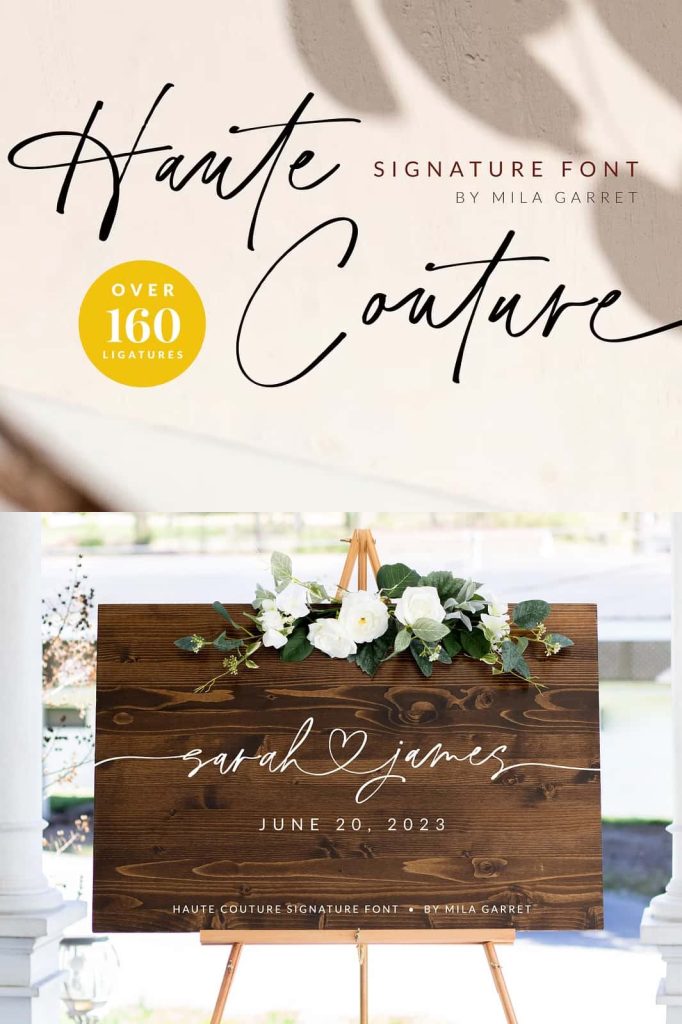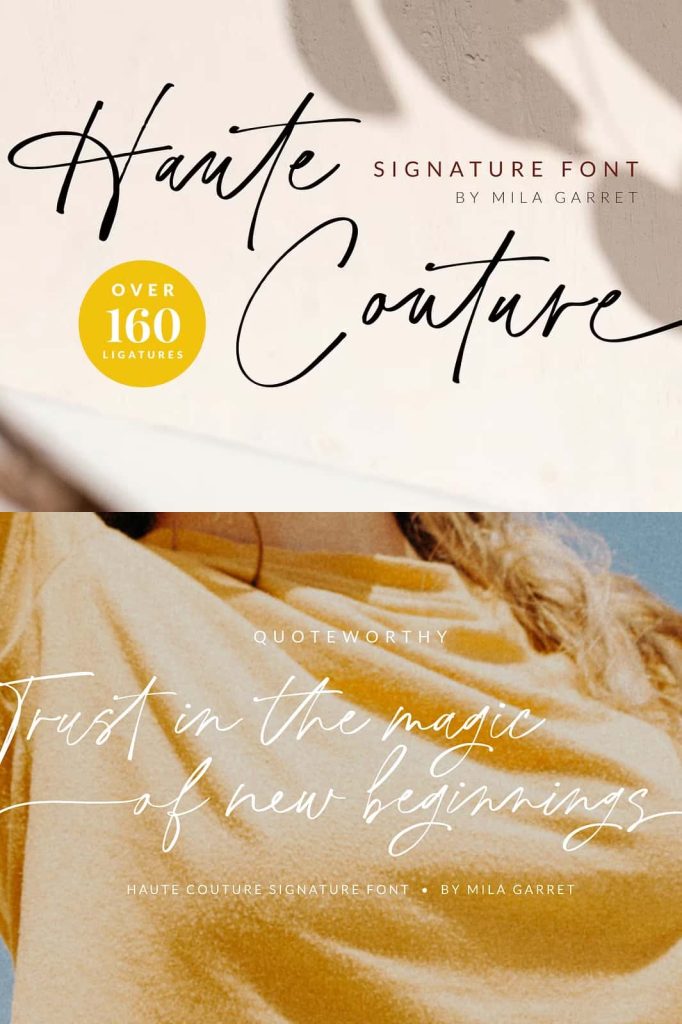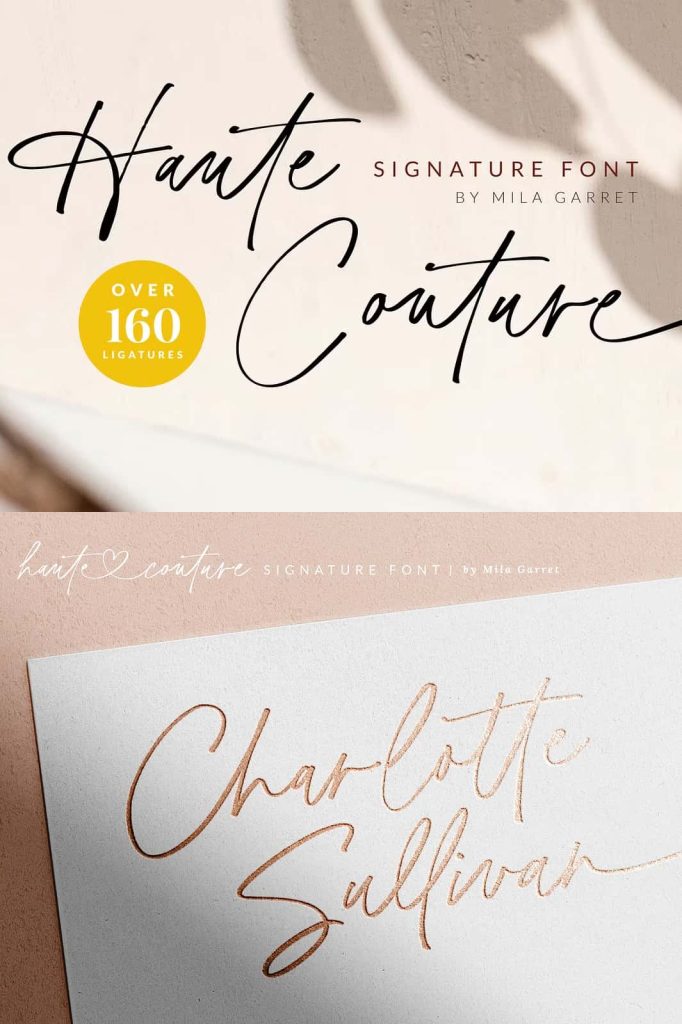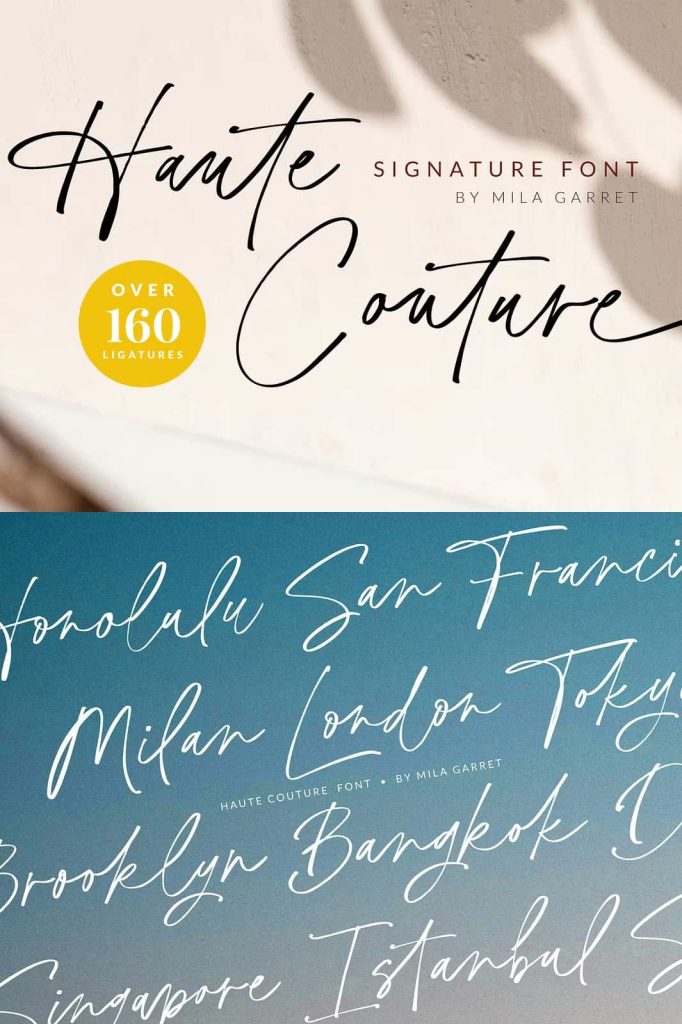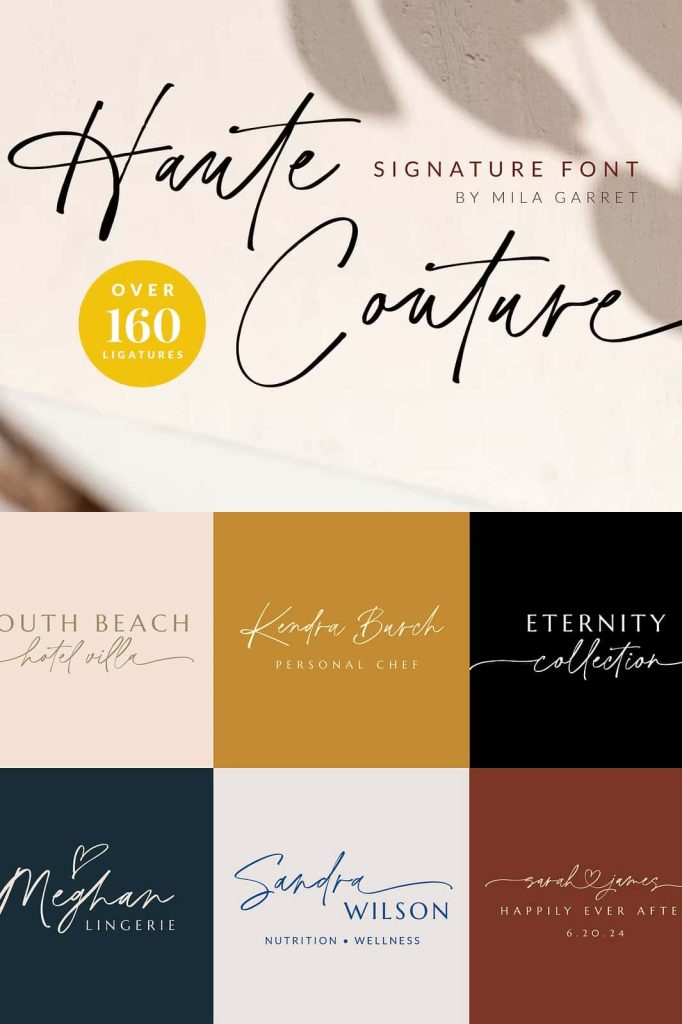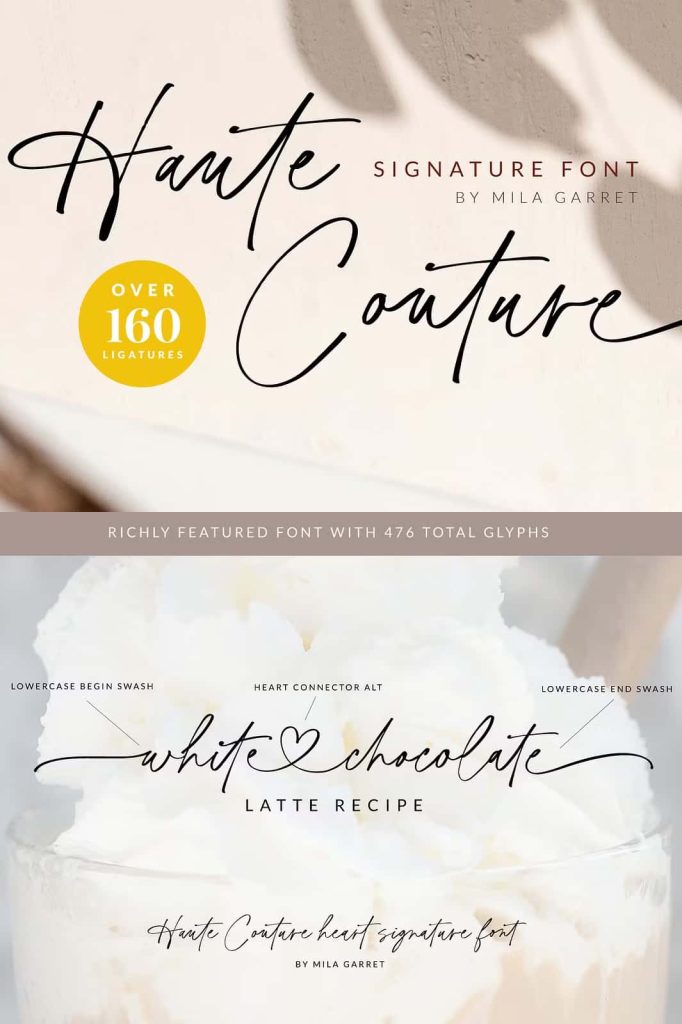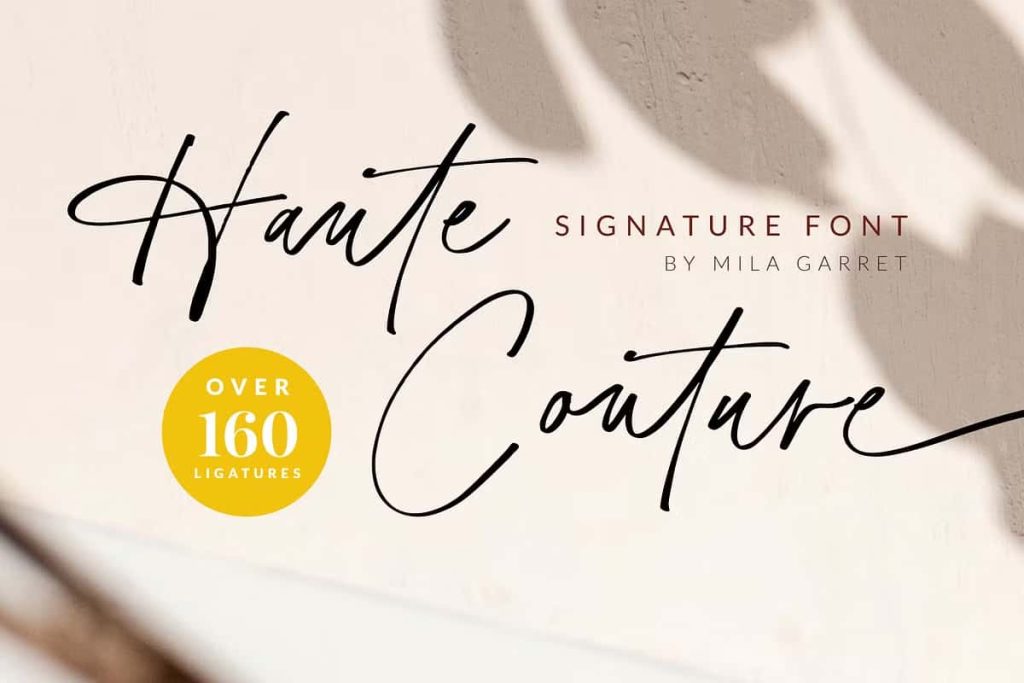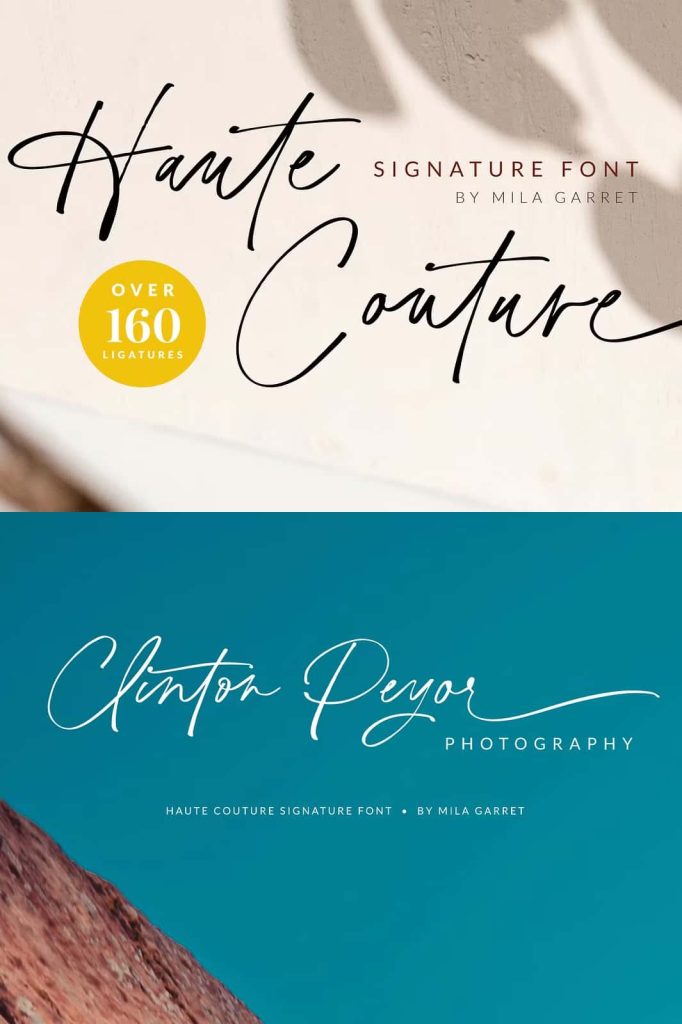
Haute Couture – An Elegant Handwritten Signature Font
Haute Couture is a sophisticated handwritten signature font designed to deliver elegance, personality, and artistic charm to modern typography. Inspired by natural handwriting and refined calligraphy, this typeface combines smooth flowing strokes with stylish curves that create a graceful and professional appearance. Designers can use Haute Couture to craft beautiful typography that feels personal, expressive, and visually striking.
This handwritten signature font captures the essence of authentic pen-written lettering while maintaining the clarity needed for professional design work. The elegant letterforms flow naturally from one character to another, producing a seamless handwritten effect. Whether used in branding, wedding stationery, or digital media, Haute Couture instantly adds a touch of luxury and creativity.
The name itself reflects the font’s personality. Just as haute couture fashion represents craftsmanship and elegance, this typeface brings refined beauty to typography. Designers who want to communicate sophistication and creativity will find Haute Couture to be a valuable addition to their font collection.
A Handwritten Signature Font with Calligraphy Flair
Haute Couture blends handwritten charm with subtle calligraphy influence. Each letter features smooth strokes and elegant curves that resemble natural pen movement. This approach creates a fluid rhythm across words and sentences, allowing the typography to feel organic and expressive.
The calligraphy flair enhances the overall elegance of the font. While the style remains relaxed and modern, the letterforms maintain graceful proportions that elevate the design. This balance between casual handwriting and refined calligraphy makes the font versatile for many different creative applications.
Designers often search for signature fonts that look authentic but still maintain readability. Haute Couture accomplishes this by combining artistic letterforms with carefully balanced spacing. The result is a typeface that looks natural while remaining easy to read in both large and small design elements.
Perfect for Handwritten-Style Logos
One of the most popular uses for Haute Couture is logo design. Many modern brands prefer signature-style typography because it creates a personal and memorable visual identity. The flowing strokes of this handwritten signature font help brands communicate elegance, authenticity, and creativity.
Designers can use Haute Couture to build stylish logos for fashion brands, beauty products, lifestyle businesses, and personal brands. The handwritten style suggests craftsmanship and individuality, making it especially suitable for businesses that want a refined yet approachable image.
Because the font has strong visual personality, it works well as the central element of a logo. Even simple layouts become distinctive when styled with elegant signature lettering.
Ideal Design Applications
- Handwritten-style logo design
- Wedding invitations and stationery
- Photographer watermark logos
- Brand identity projects
- Product packaging and labels
- Modern website typography
- Social media branding
- Creative quote graphics
Beautiful Typography for Wedding Stationery
Wedding design often requires typography that feels romantic, elegant, and personal. Haute Couture provides the perfect visual tone for wedding invitations, save-the-date cards, RSVP cards, and event announcements. The graceful strokes create a sense of intimacy and celebration that fits beautifully with special occasions.
Couples and wedding designers can use this handwritten signature font to craft invitation suites that feel handcrafted and luxurious. The flowing script style adds emotional warmth while maintaining sophisticated presentation.
In addition to invitations, the font also works well for wedding signage, table cards, thank-you notes, and decorative typography used throughout the event.
Ideal for Photographer Watermarks and Creative Branding
Photographers often rely on signature-style fonts to build elegant watermark logos. Haute Couture works perfectly in this context because its handwritten appearance feels personal while still looking polished. A signature watermark created with this font can help photographers brand their images without distracting from the visual content.
The font also adapts beautifully to creative branding projects. Designers can use it to build visual identities for artists, bloggers, content creators, and small businesses. The signature style suggests authenticity and creativity, which helps brands connect emotionally with their audiences.
Because the typography feels natural and stylish, it works well across multiple branding platforms including websites, business cards, packaging, and digital marketing materials.
Enhance Modern Website and Social Media Design
Haute Couture also shines in digital design environments. Websites and social media graphics benefit from typography that feels expressive and memorable. The handwritten script style helps create visually engaging headlines, hero text, and decorative accents.
Designers can use this font to highlight important messages, craft elegant call-to-action text, or add personality to brand storytelling. The flowing curves provide a strong visual contrast when paired with clean sans serif fonts commonly used in modern web design.
This combination allows designers to build layouts that feel both structured and creative, enhancing the overall user experience.
A Versatile Font for Modern Designers
Haute Couture offers a versatile typography solution for designers who want to add handwritten elegance to their work. The font performs beautifully across many types of design projects, including branding, editorial layouts, packaging, and event materials.
The secret to its versatility lies in its balanced design. While the font carries artistic personality, it remains refined enough for professional environments. Designers can confidently integrate it into both luxury branding and casual creative projects.
Because the font mimics natural handwriting while maintaining consistent structure, it allows designers to achieve authentic visual style without sacrificing quality or clarity.
Bring Elegant Signature Style to Your Typography
Haute Couture is more than just a decorative typeface. It is a carefully crafted handwritten signature font that helps designers create typography with elegance, warmth, and individuality. The graceful strokes and calligraphy-inspired curves give every word a sense of artistry and sophistication.
Whether you design handwritten-style logos, wedding stationery, photographer watermarks, or stylish website layouts, Haute Couture delivers the charm and elegance needed to elevate your typography. Add this refined signature font to your creative toolkit and transform ordinary text into beautiful handwritten design.